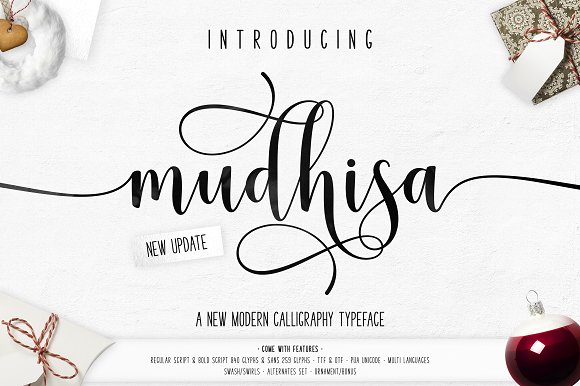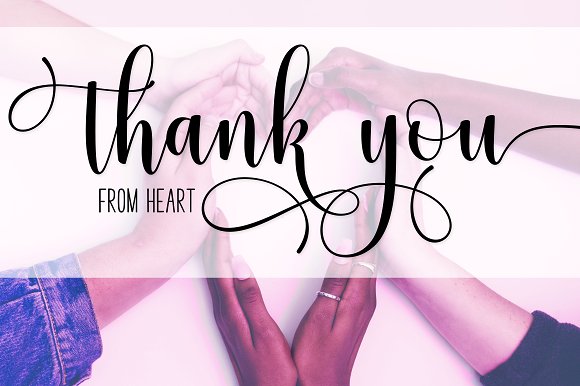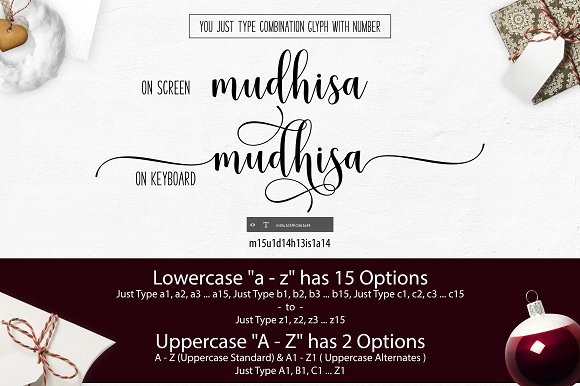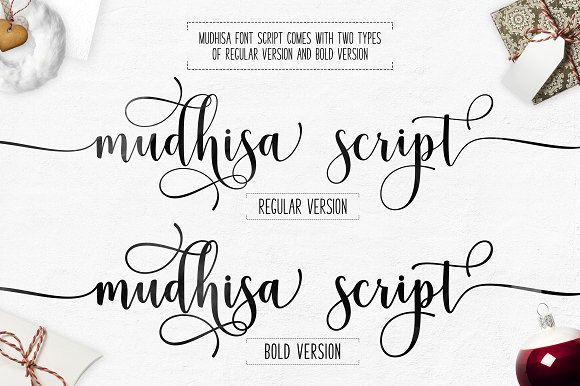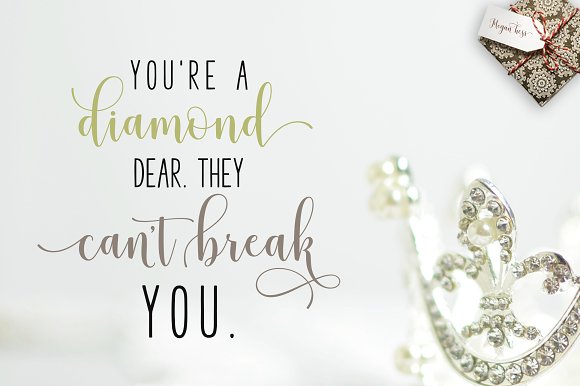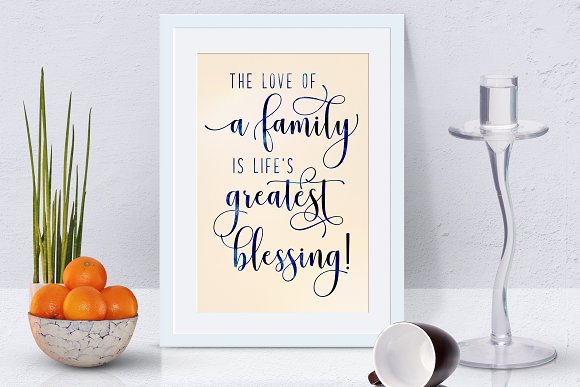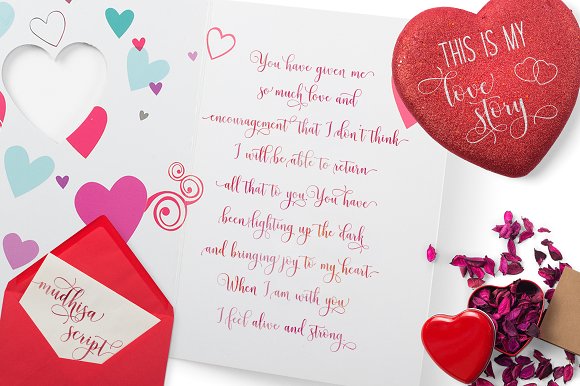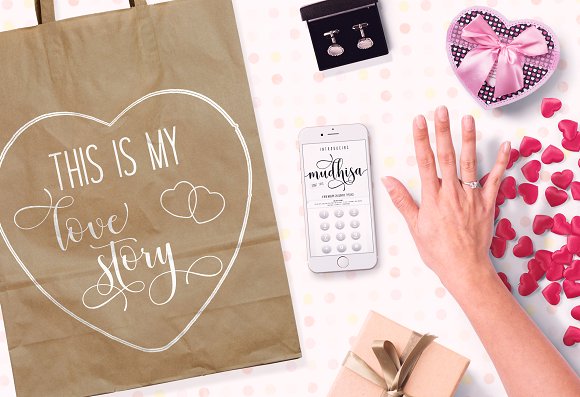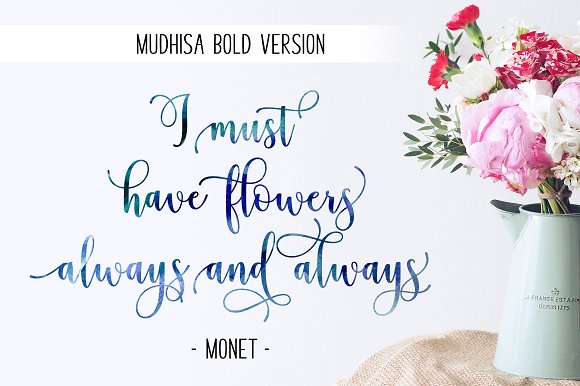
HomeScript FontsMudhisa Font Script Fonts Mudhisa Font FacebookXPinterestWhatsApp Mudhisa Font Poster 2 Mudhisa Font Poster 3 Mudhisa Font Poster 4 Mudhisa Font Poster 5 Mudhisa Font Poster 6 Mudhisa Font Poster 7 Mudhisa Font Poster 8 Mudhisa Font Poster 9 Mudhisa Font Poster 10 About Mudhisa Font Mudhisa is a stunning Script that comes in 4 different versions: Script, Bold, Sans & Slant. DOWNLOAD ON CREATIVE FABRICAThis font is sold and delivered by Creative Fabrica. Font Canyon may earn a commission if you buy through this link. People also explored Blessing Font Handwritten Font Collection Font Sundlimation Beauty Font Mousse Creamy Font Estancy Font Racetrack Font Loving Easter Font Impossible Font Antemy Font 308 0 TagsMudhisa Font Previous articleOqagies FontNext articleMistletoe Font LEAVE A REPLY Cancel reply Comment: Please enter your comment! Name:* Please enter your name here Email:* You have entered an incorrect email address! Please enter your email address here Website: Save my name, email, and website in this browser for the next time I comment. Personal Use Free White Rose Personal Use Free Read more about this font Green Fuz Personal Use Free Read more about this font DREXS Personal Use Free Read more about this font Hollow Personal Use Free Read more about this font BLOG How to Cut Any Font on Cricut: Convert a Font to SVG (Free) Turn any font into a clean SVG so it cuts crisp on Cricut - a quick 3-step workflow using a free font-to-SVG tool. Where to Buy American Fonts Online in 2024 Top 7 Google Fonts Alternatives for Faster and Privacy-Friendly Web Design (2025) Exploring Font Trends